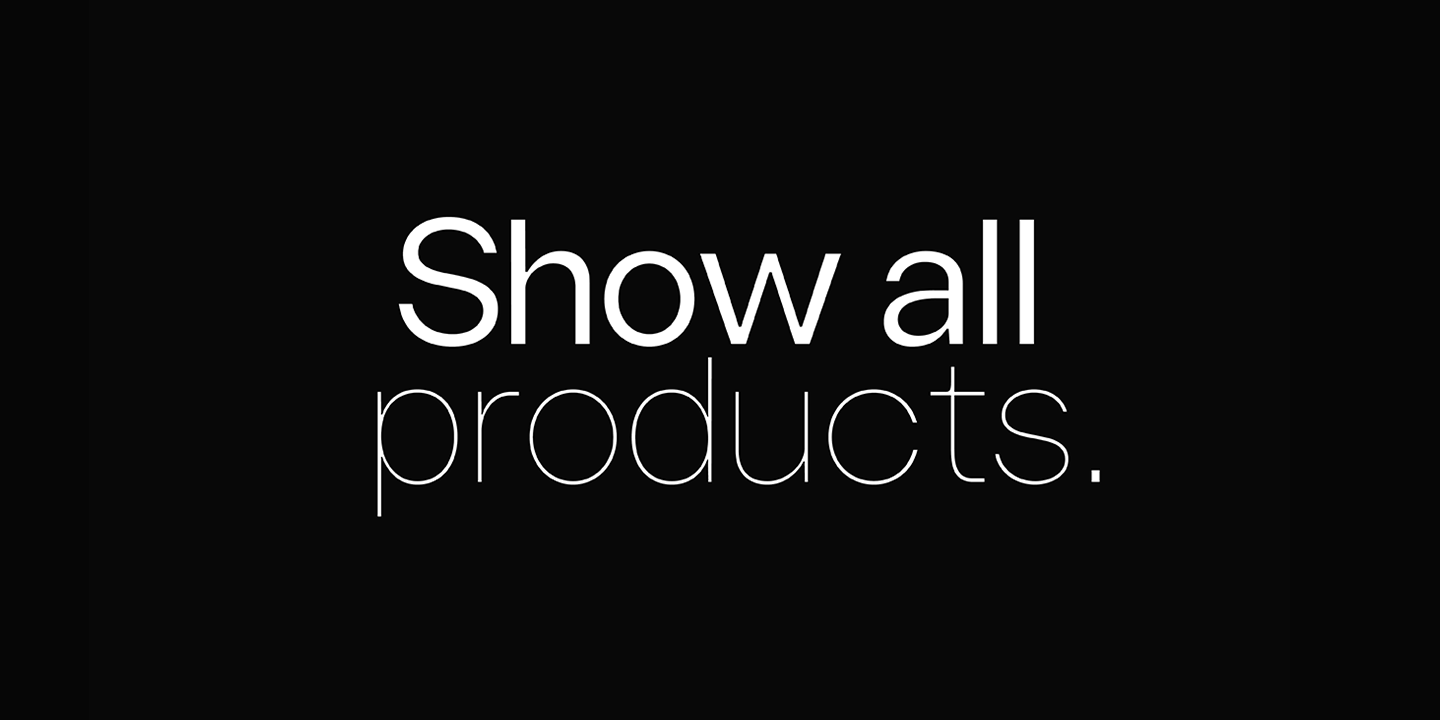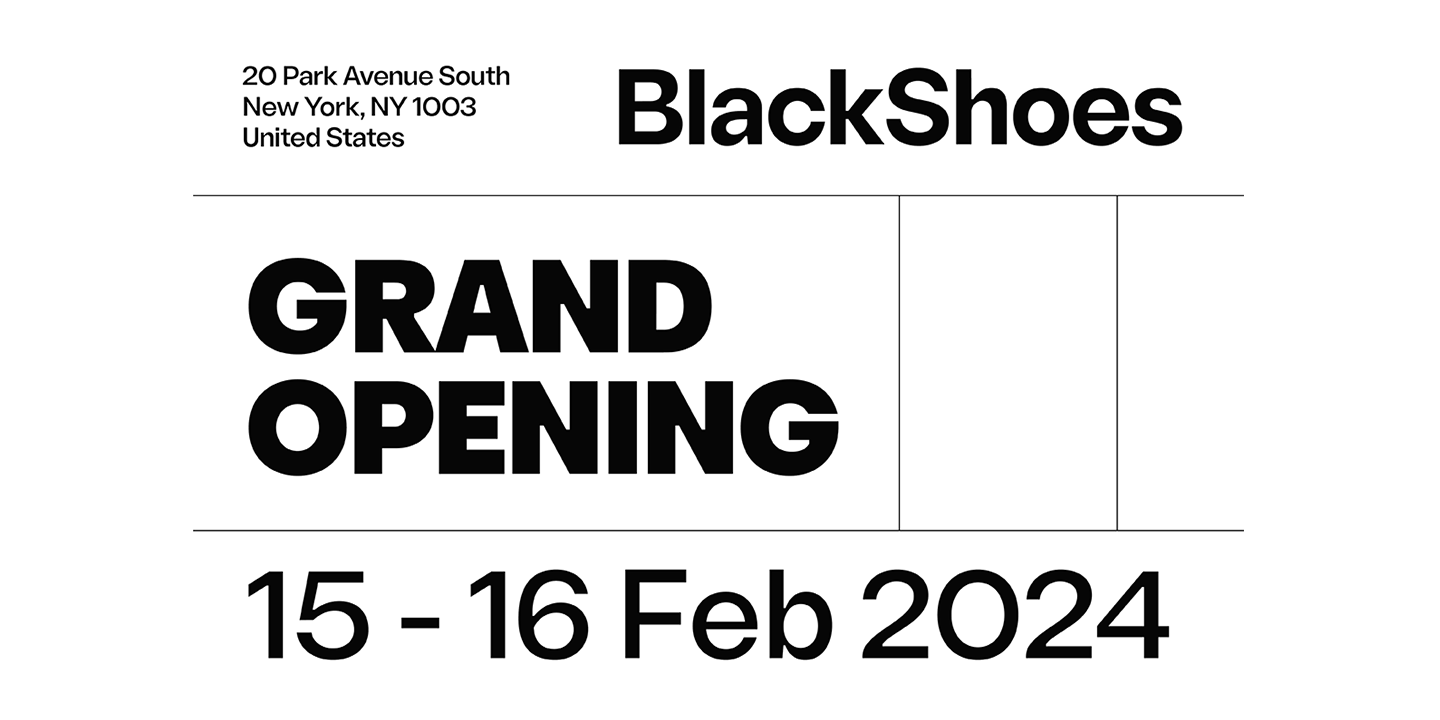
About Sherika
Sherika is a cool and authentic sans serif font family. Seven weights plus matching italics. Simple geometry with nuance that adds warmth. It's a perfect choice for branding, magazines, posters, advertising, packaging, headlines, logos, web, print…